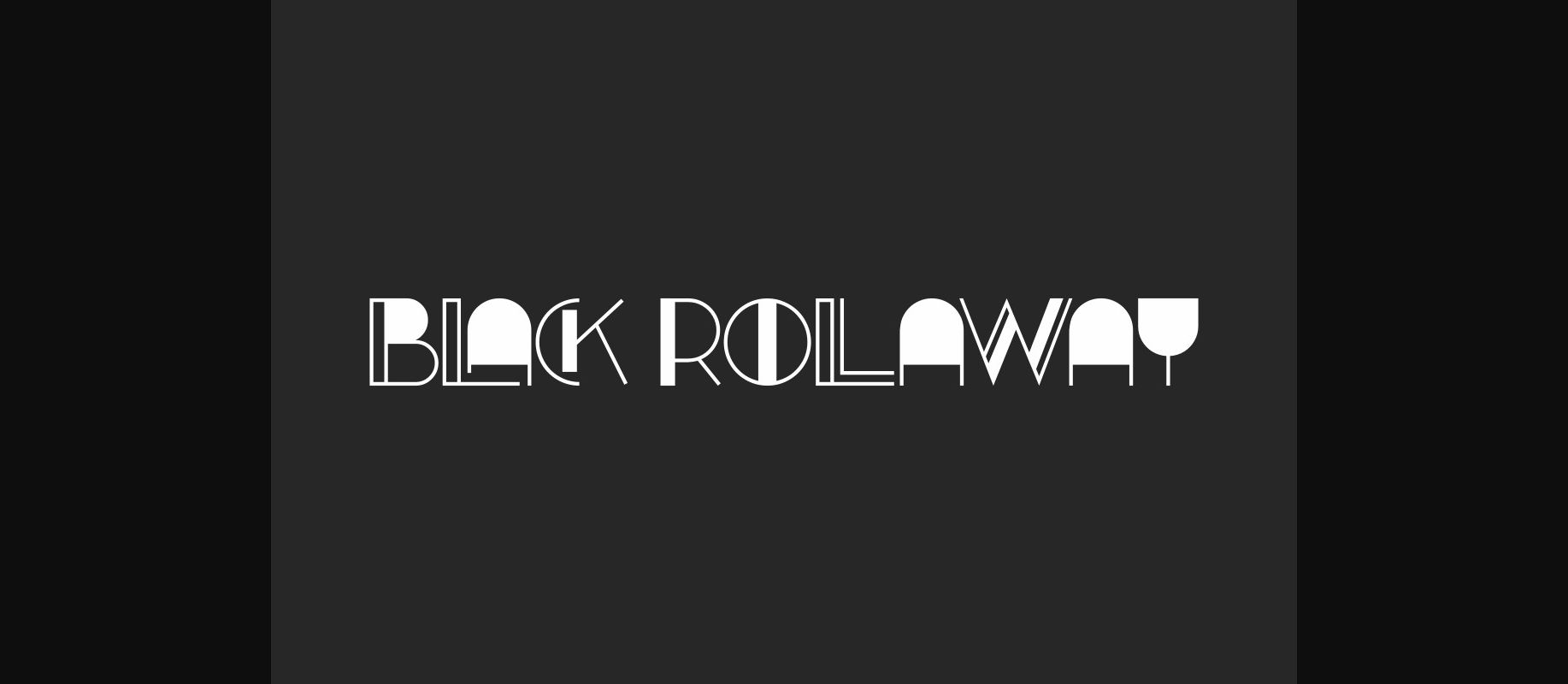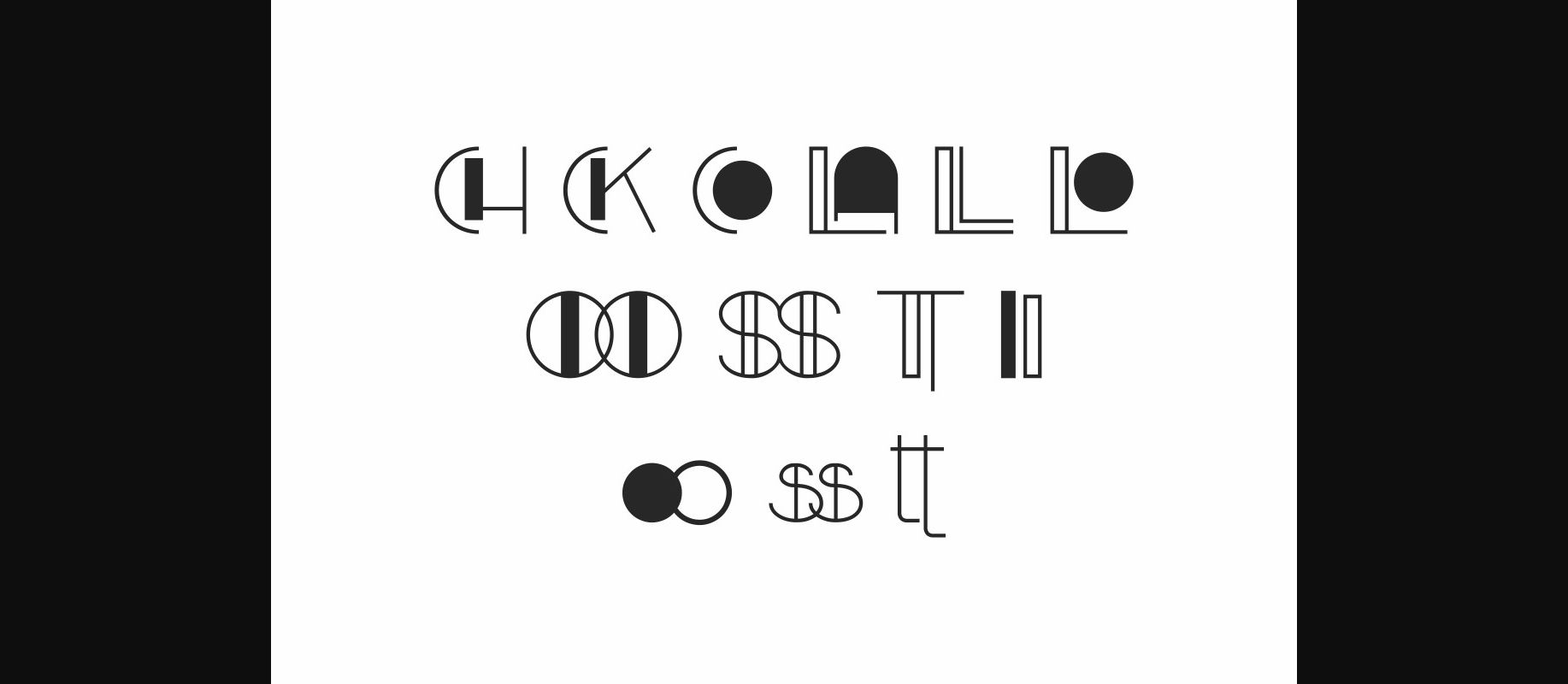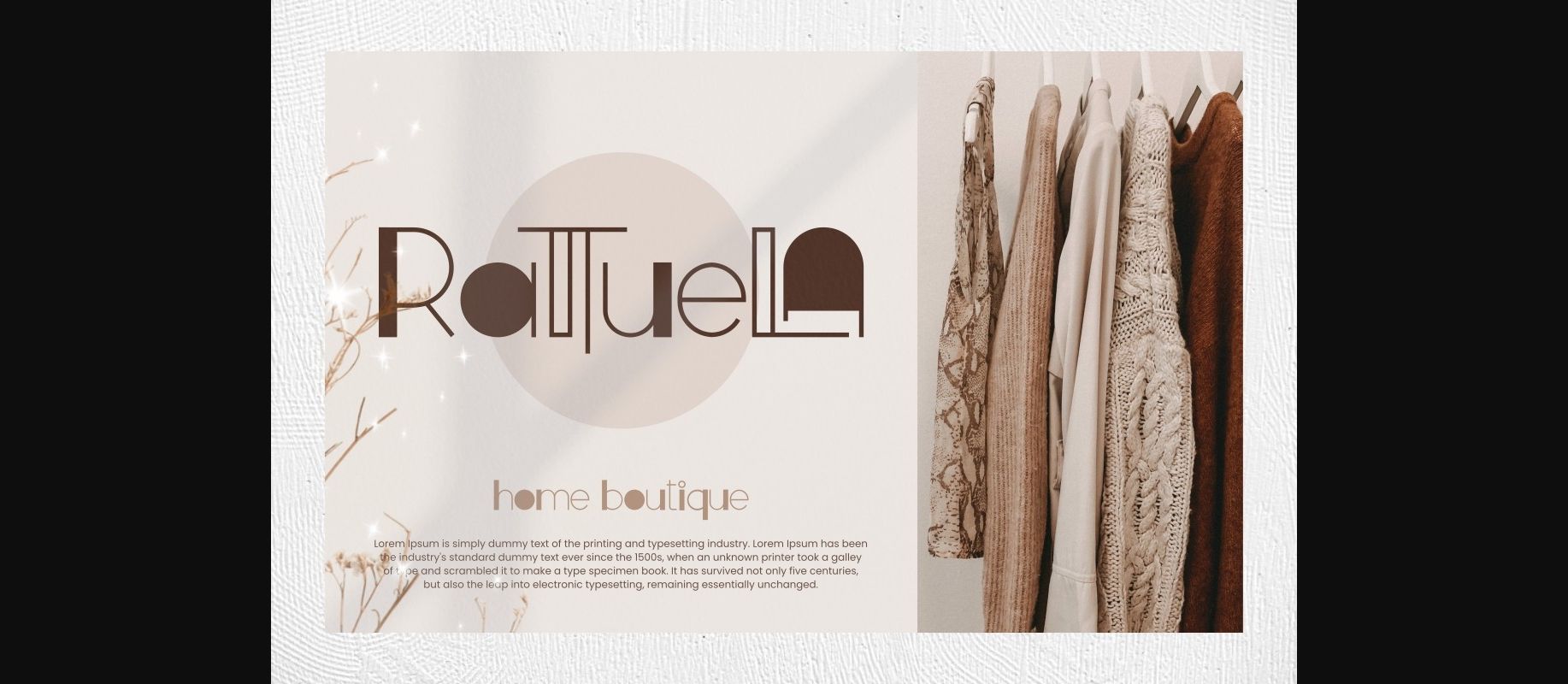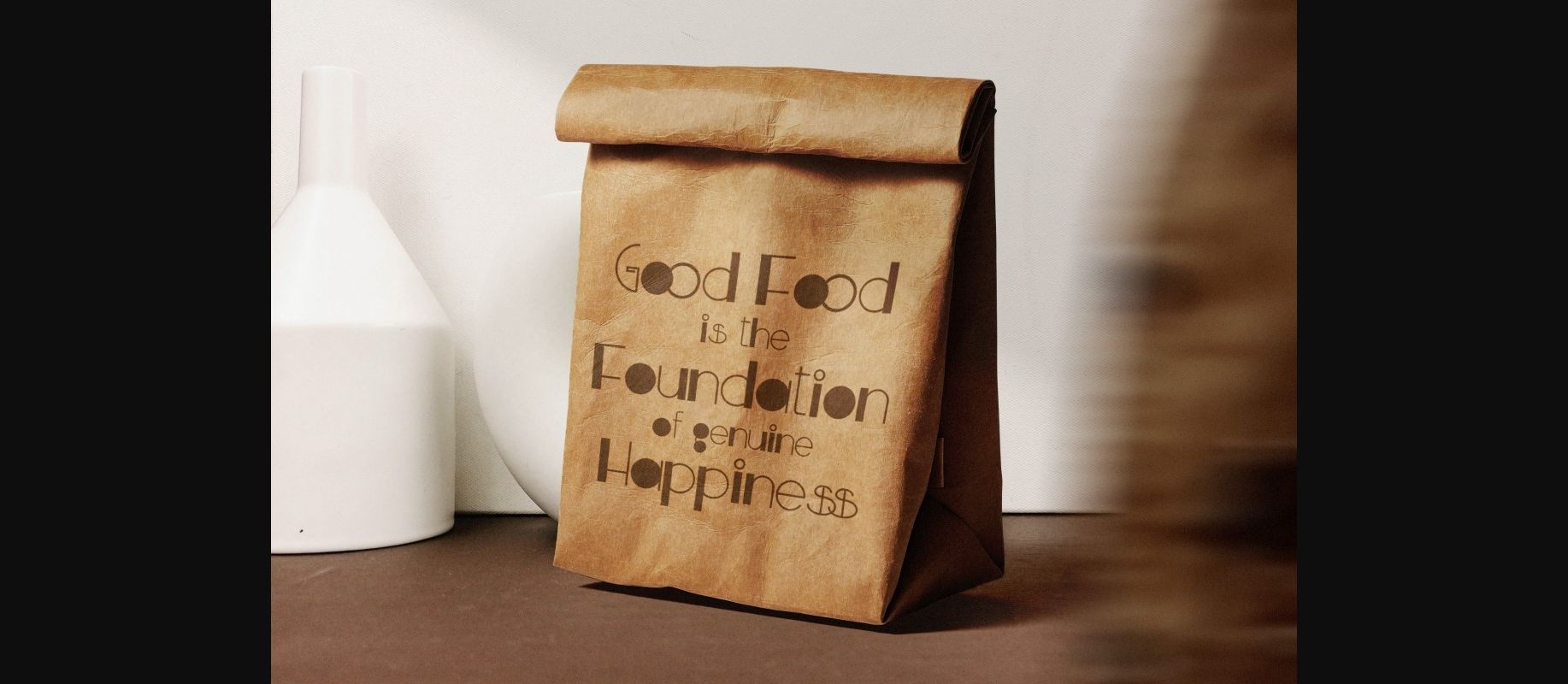
About Black Rollaway Font
Black Rollaway Font is a unique display font inspired by some retro vibes. The uniqueness of this font is in the character letters that have thin lines and are filled with black in certain parts. This font will be suitable for many industries such as boutiques, cosmetics, vintages, event organizers, fashion, homeware, publishing, restaurant, and more!